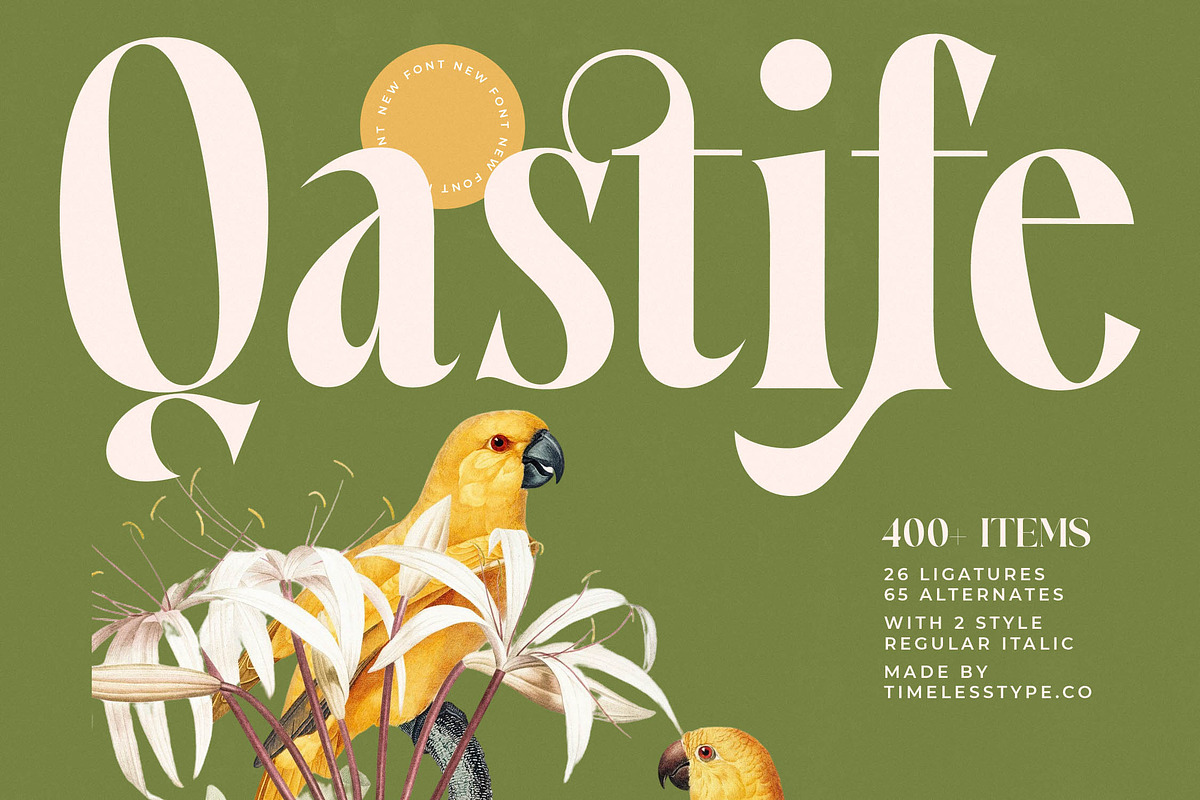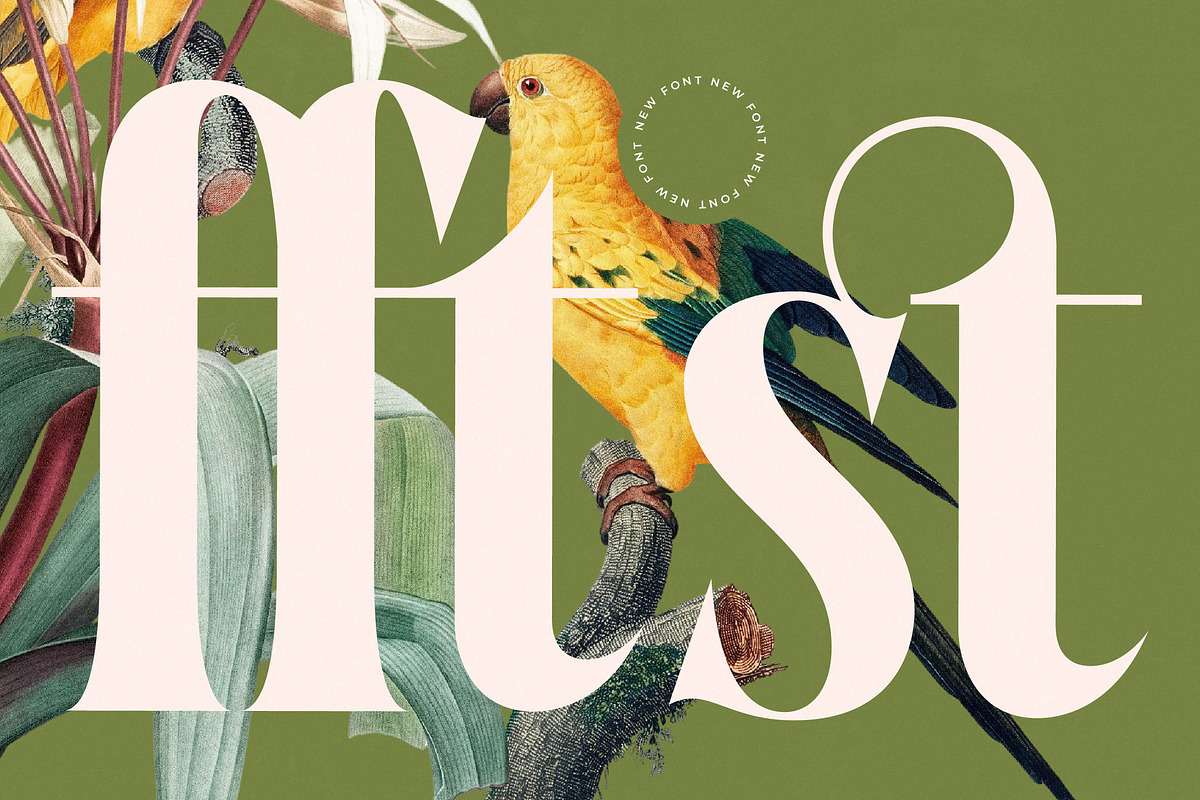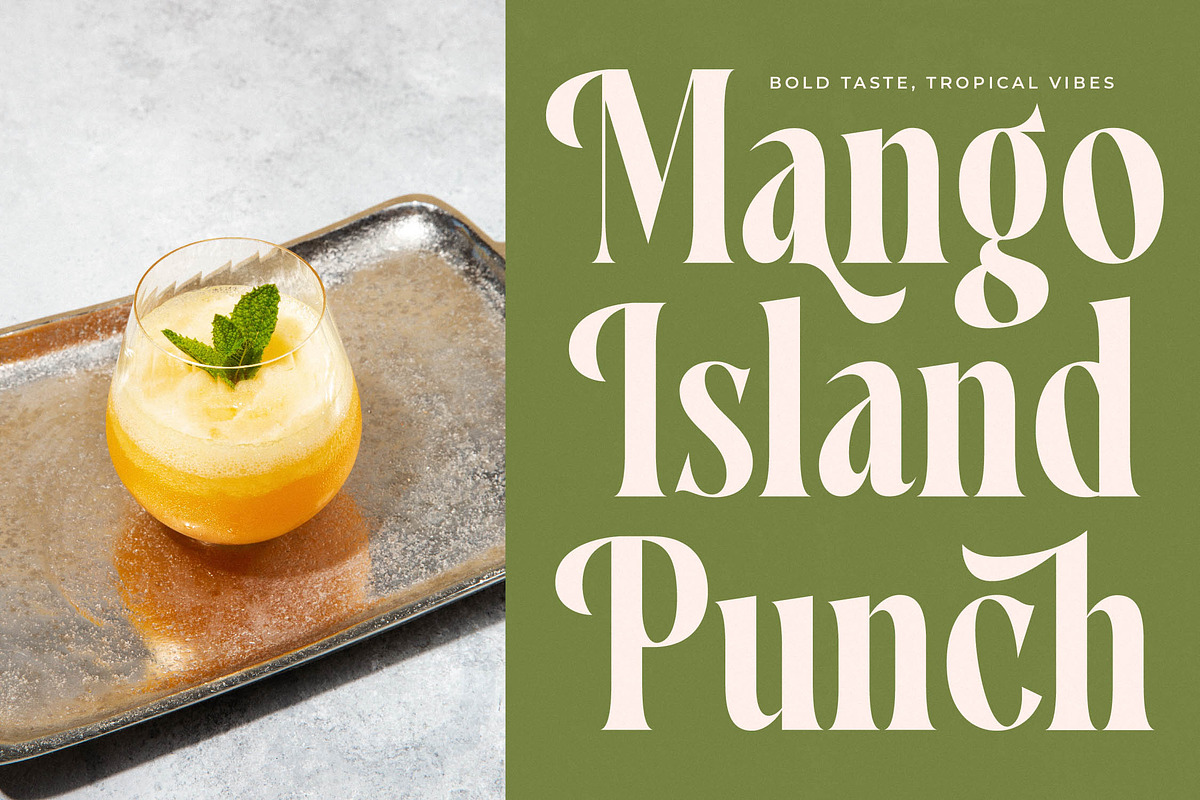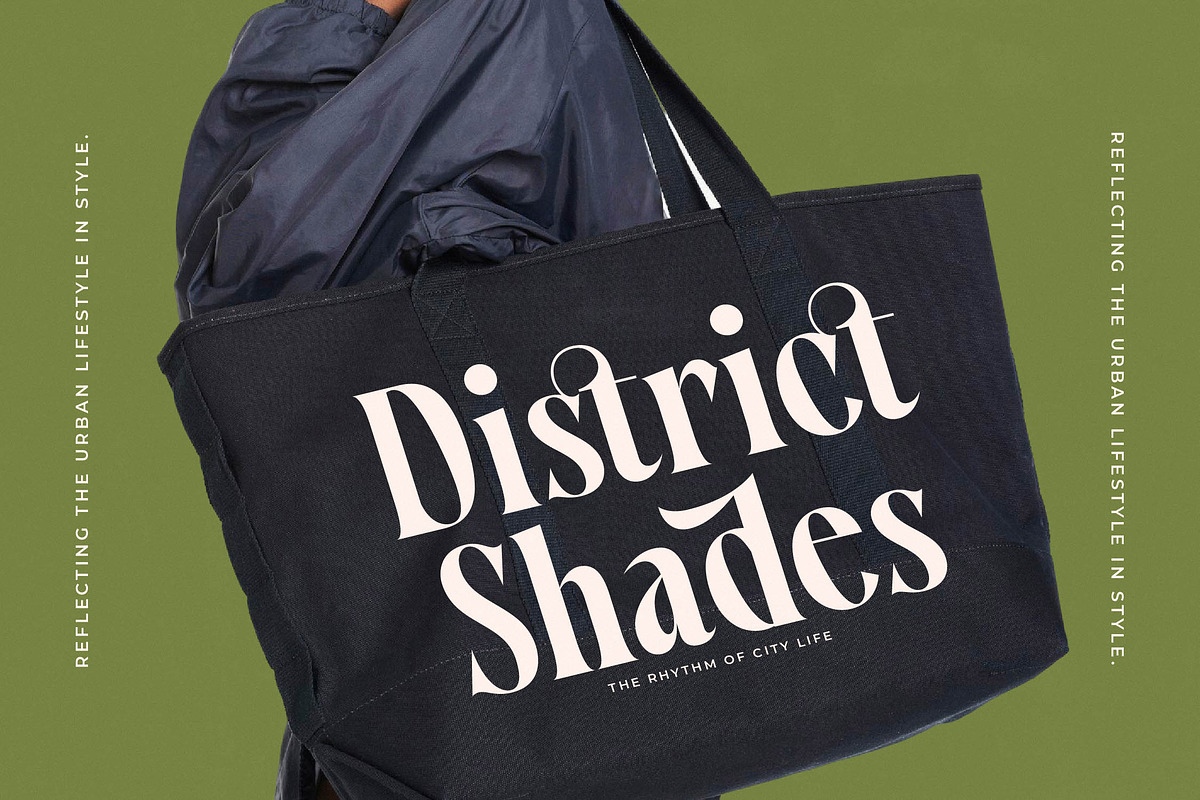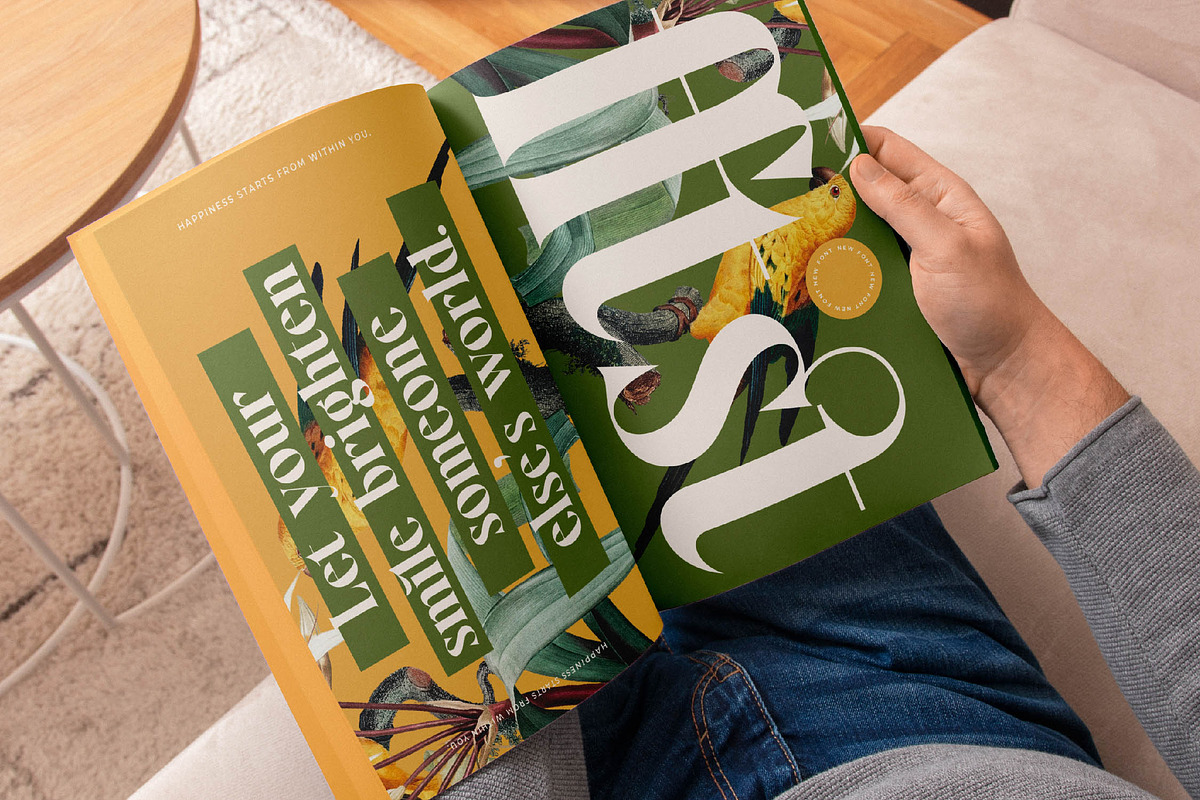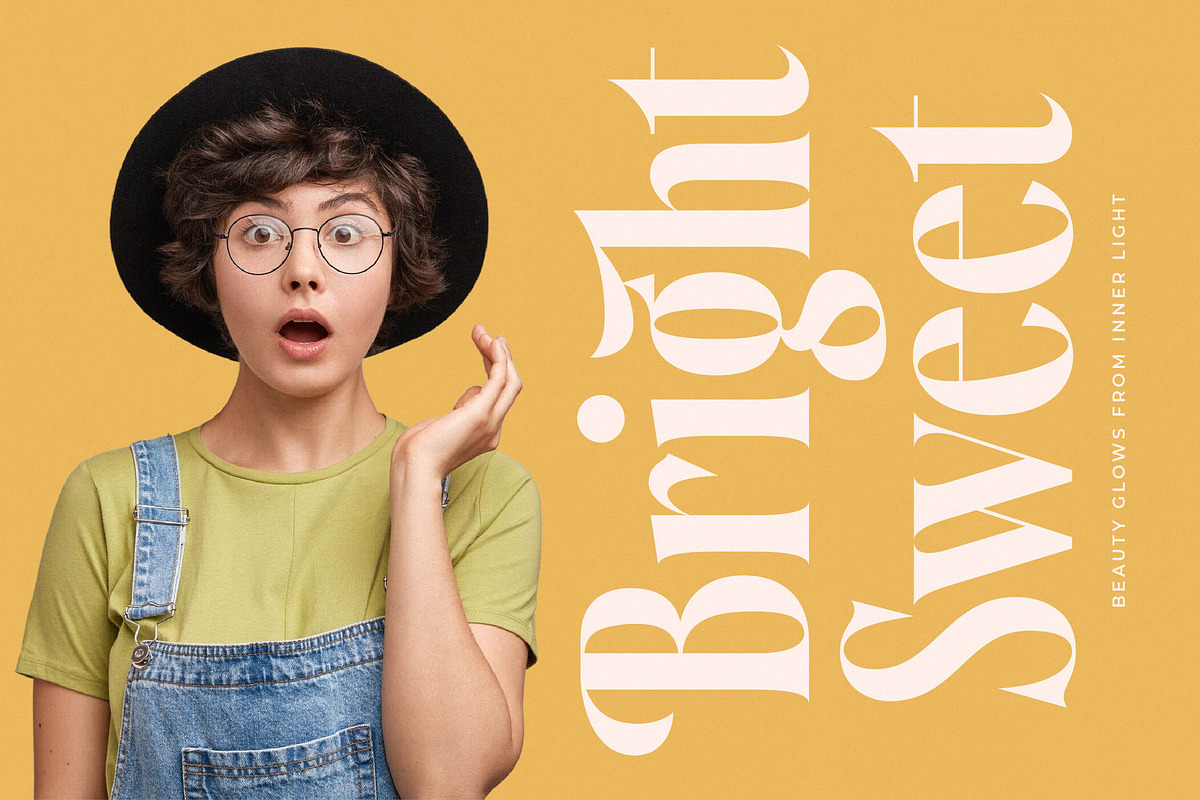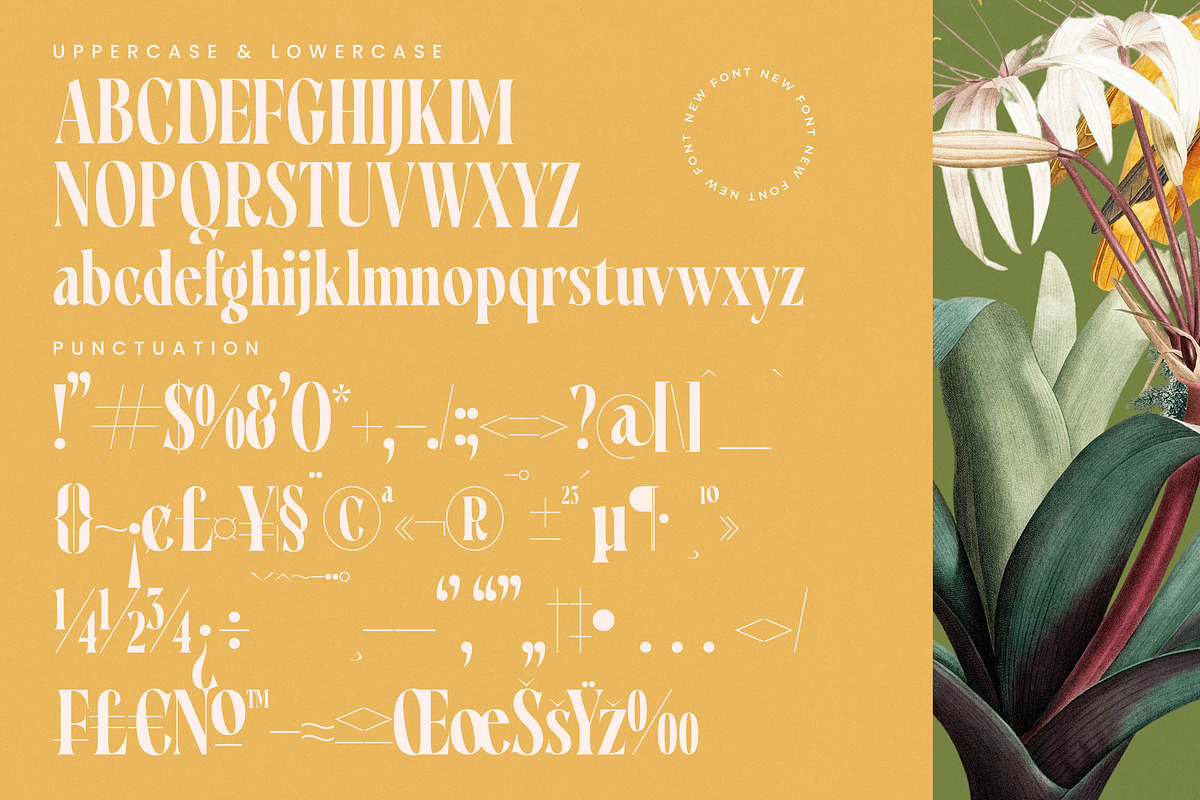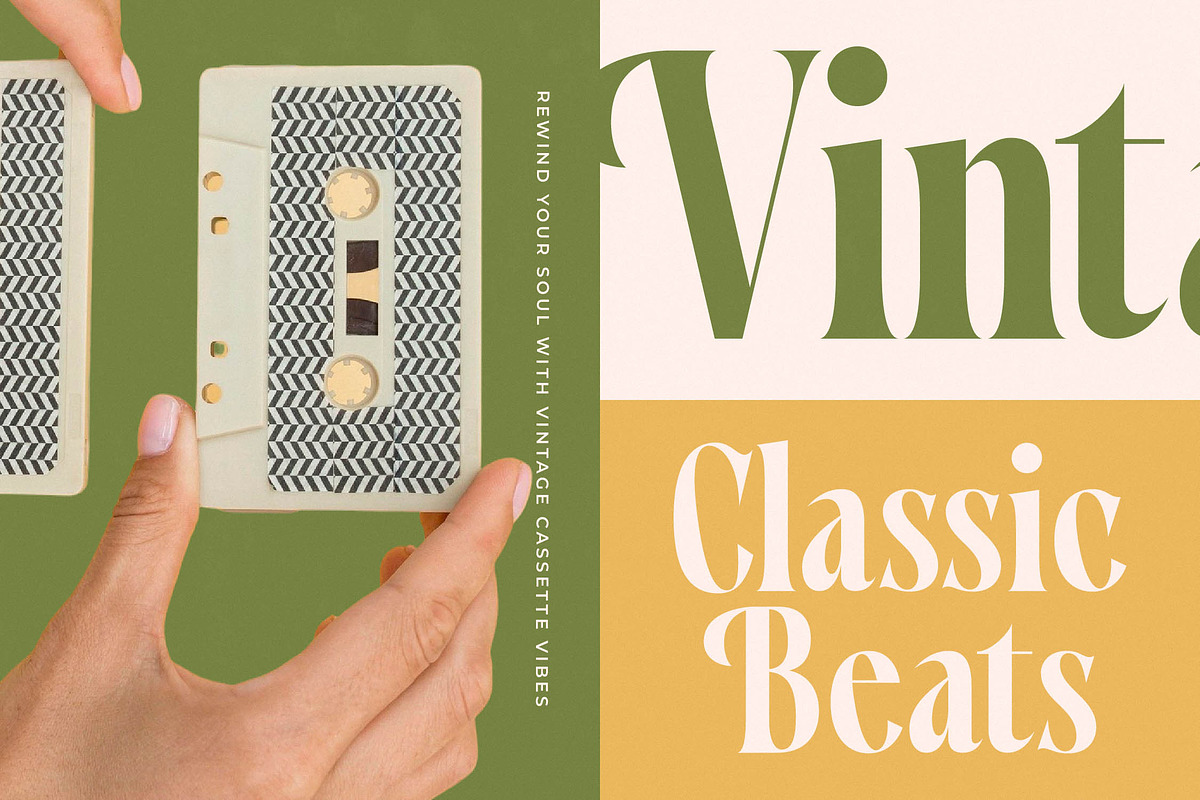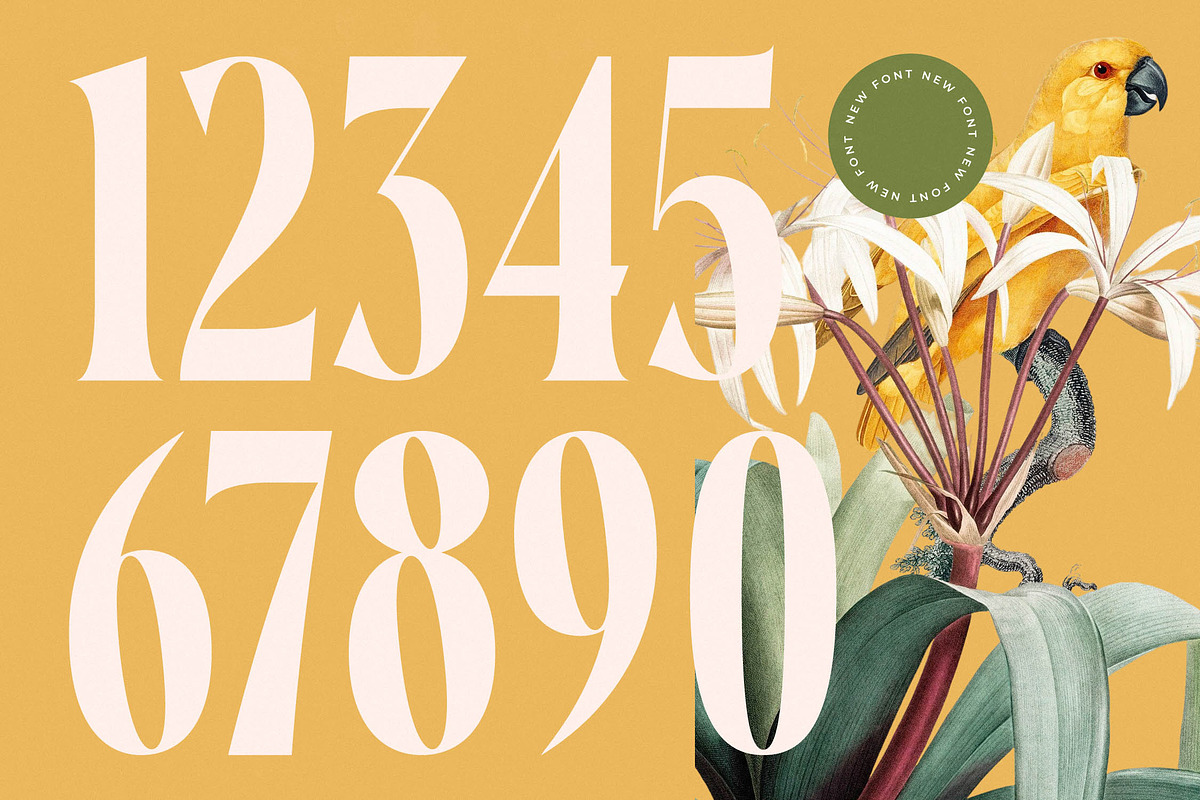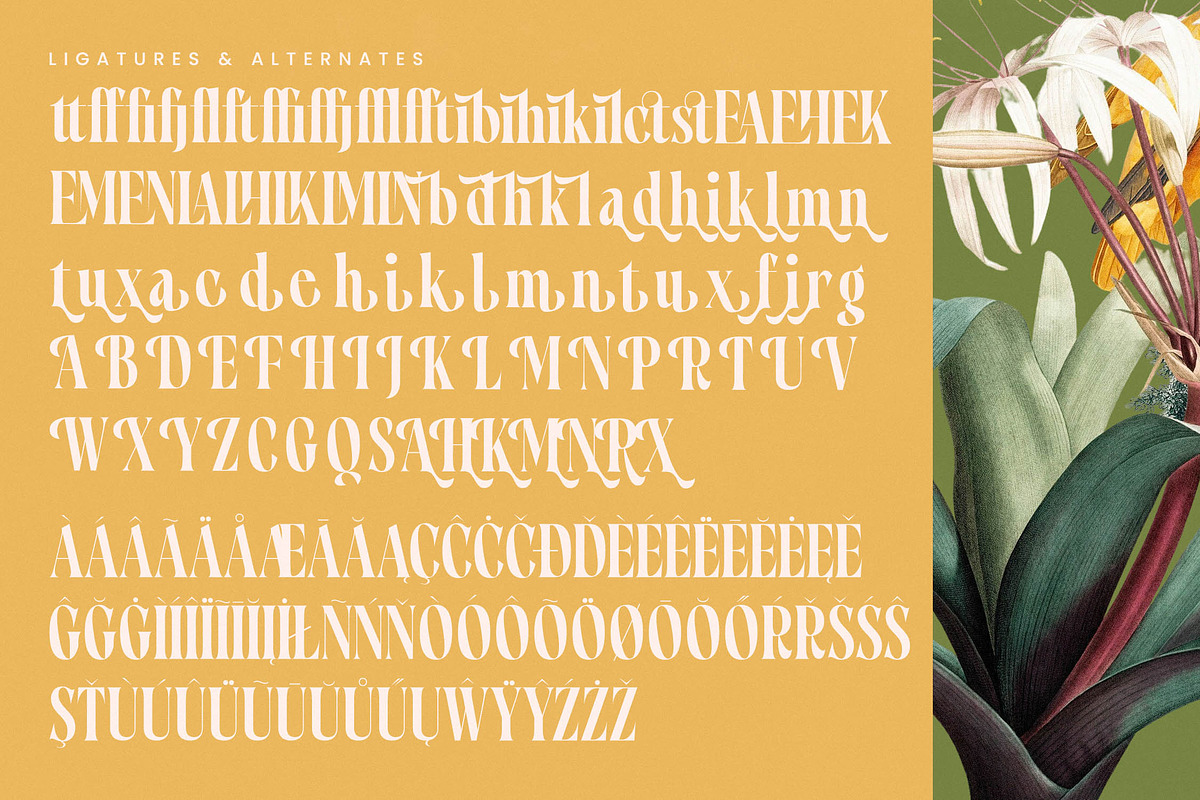
Qastife Elegant Display Serif
Elevate your creative vision with Qastife, a masterpiece of typographic elegance designed to command attention. This font seamlessly blends classical structures with a contemporary flair, making it an essential tool for designers seeking a refined aesthetic.
Inspired by the fluid beauty of botanical forms and the crisp precision of vintage editorial layouts, this typeface evokes a sense of natural grace. The balance of thick and thin strokes reflects the delicate harmony found in the natural world, as seen in its organic presentation alongside lush flora.
With its striking silhouette, this modern serif display provides an unmatched luxury typography experience that defines prestige. Its high-contrast serif design ensures a powerful editorial font presence, delivering a massive branding impact across any medium it graces.
Capturing the essence of the current modern serif trend, this typeface is a leading choice for editorial display fonts. It stands out in a crowded market through its character-driven typography, offering a unique voice that resonates with contemporary visual storytelling.
This versatile typeface excels in high-end logo design and comprehensive branding projects where distinction is key. From sophisticated editorial spreads and premium packaging to romantic wedding stationery and avant-garde fashion layouts, it adapts beautifully to diverse professional needs.
The extensive character set includes over 400 items, featuring a rich collection of unique ligatures and creative alternates. Designers will appreciate the expressive swashes and full multilingual support, including a comprehensive range of international characters for global reach.
- Ligature 26 Alternate 65